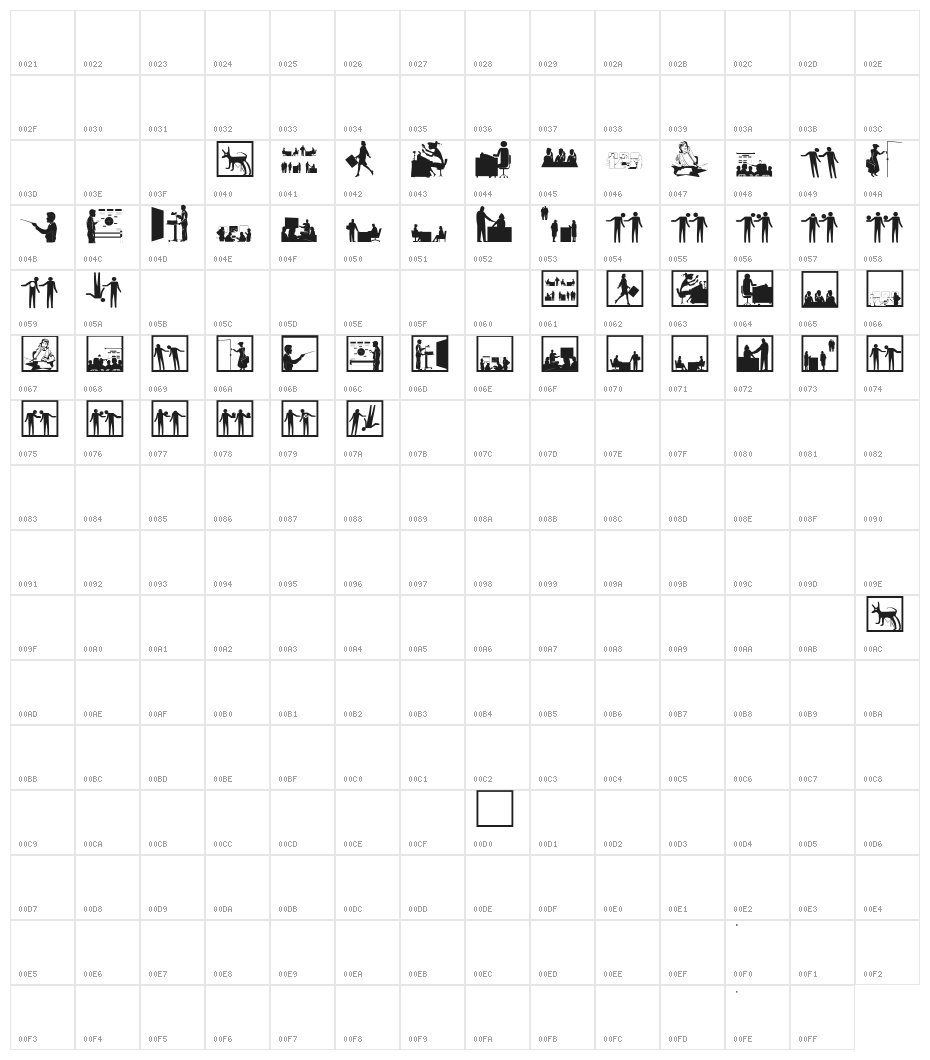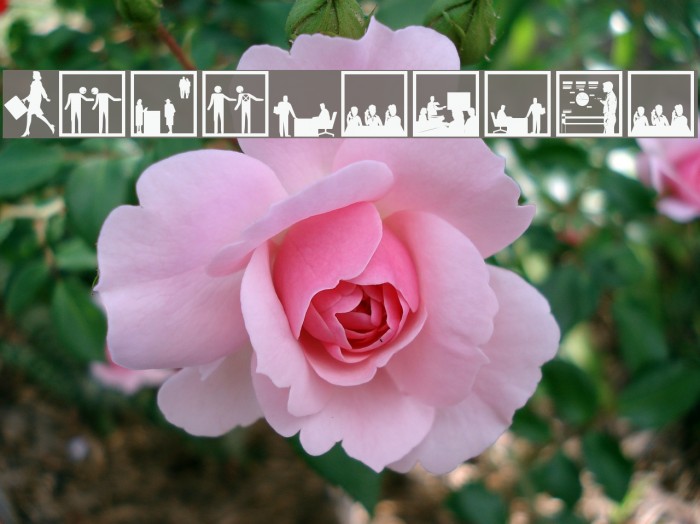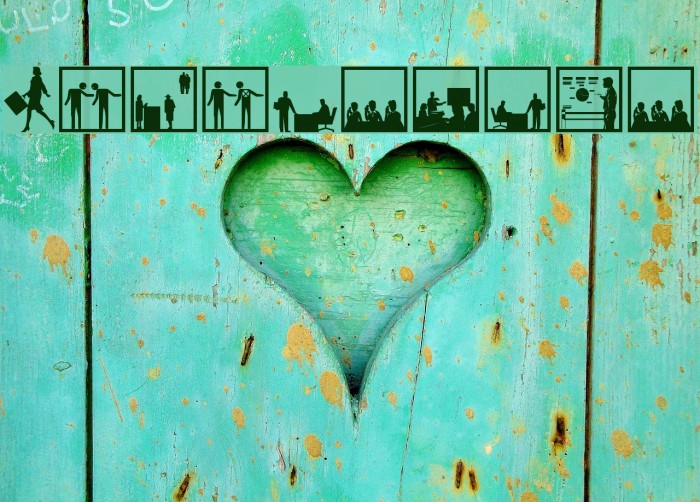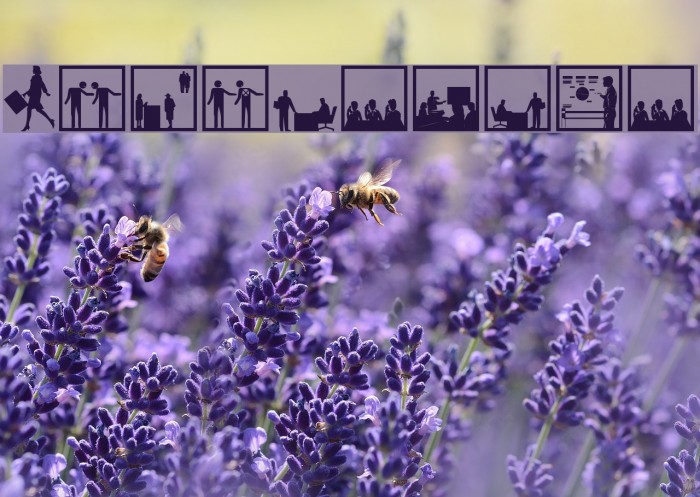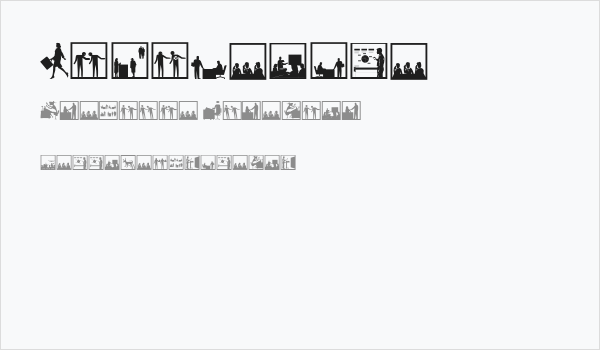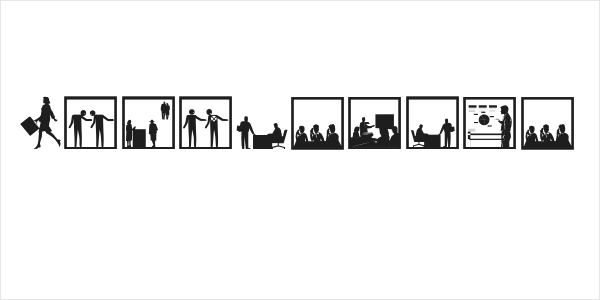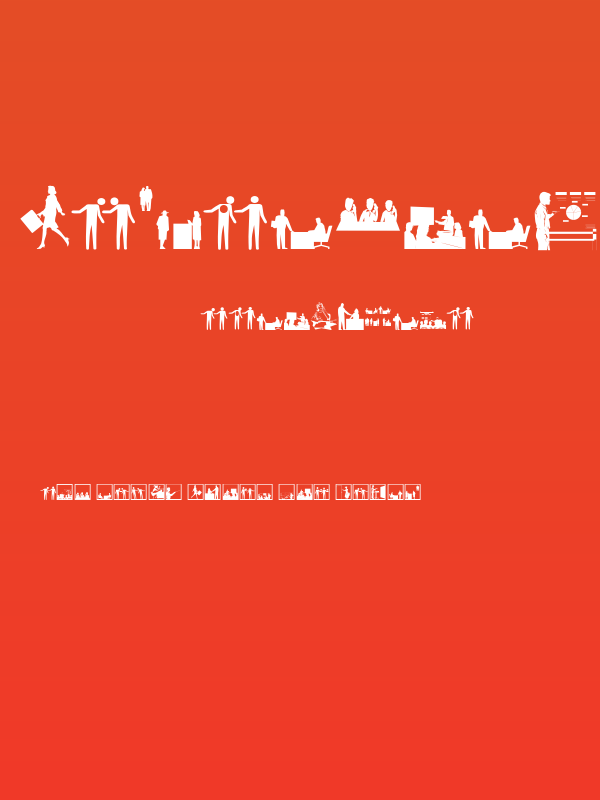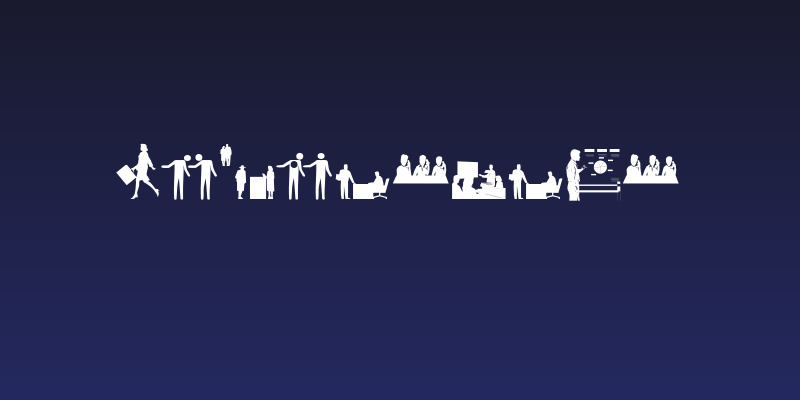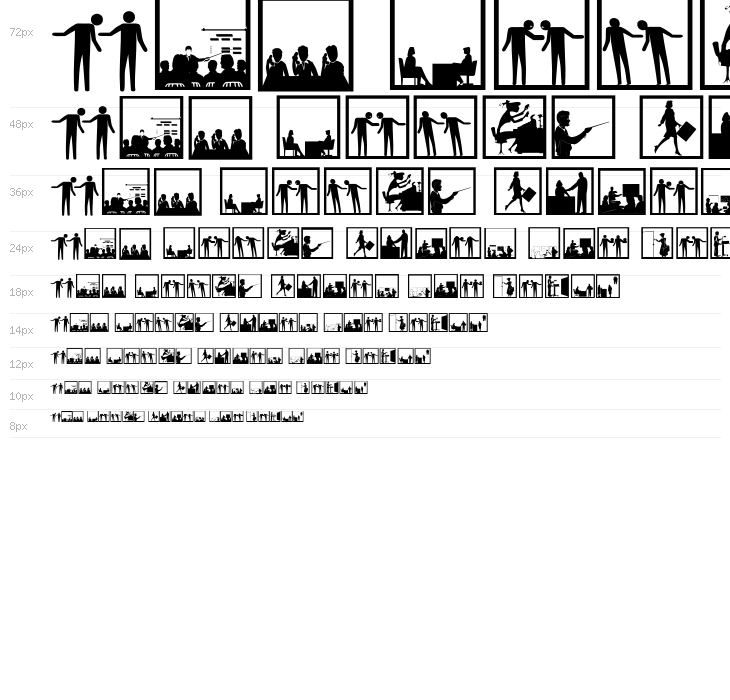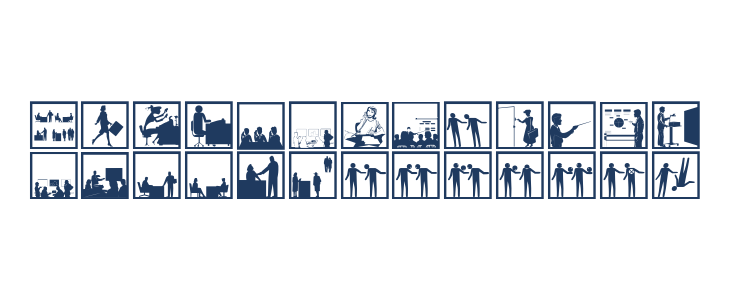
BusyPeople01 Font
A pictogram-style dingbat font featuring various business and office-related silhouettes, including people in meetings, presentations, working at desks, and collaborative activities, all rendered in bold black shapes with minimal detail.
Overall StyleModern, Decorative
Use CaseIcons, Infographics, Visual aids, Decorative elements
Proposed ProjectsInfographics, business presentations, instructional materials, signage, educational resources, and visual storytelling.